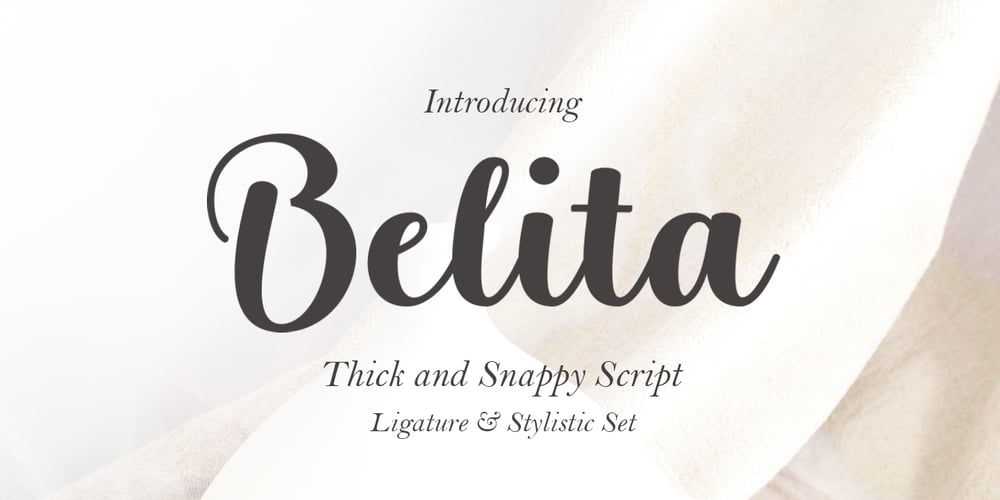
Belita Font Family was designed by khaidir and published by Gatype. Belita contains 1 styles and family package options. Belita Modern & Feminine Script Fonts are suitable for branding, invitations, stationery, wedding designs, social media posts, advertising, product packaging, product design, labels, photography, watermarks, special events and many more.OpenType can be accessed very easily using programs that understand OpenType such as Adobe Illustrator and Adobe InDesign. (You can access most of these great features in Microsoft Word and other similar programs too, but you’ll need to familiarize yourself with Word’s font menu’s advanced tab. If you need help with this, ask me!)